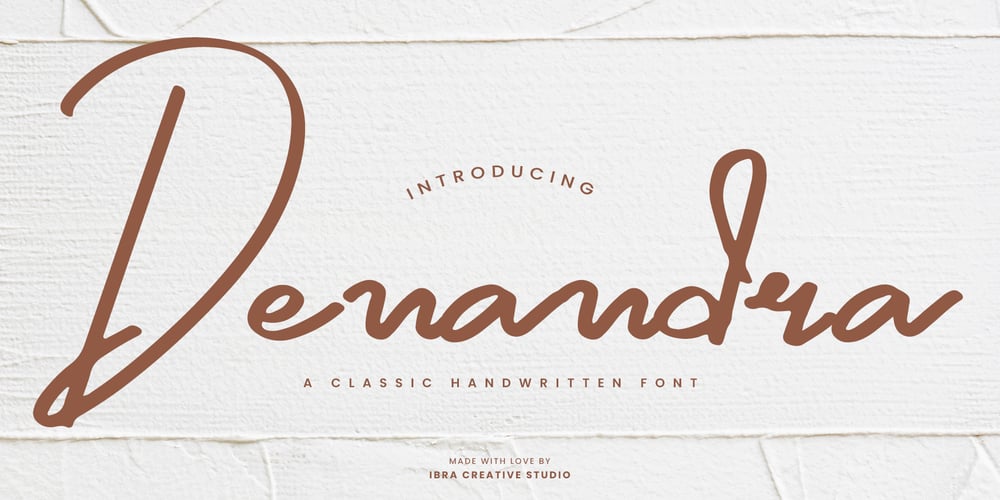
Denandra Font Family was designed by Roisatul Azizah and published by IbraCreative. Denandra contains 1 styles and family package options. Denandra – A Classic Handwritten FontDenandra is a timeless classic handwritten font that effortlessly captures the essence of handwritten elegance. With its graceful strokes and carefully crafted curves, this typeface brings a sense of authenticity and warmth to any project. The deliberate irregularities in each character lend a human touch, evoking the charm of traditional handwriting. Denandra strikes a perfect balance between legibility and artistic flair, making it versatile for various design applications. Whether used in invitations, greeting cards, or branding, Denandra adds a touch of personal and vintage charm, creating a connection between the digital world and the nostalgia of handwritten notes. This font is a testament to the enduring appeal of classic script, offering a sophisticated and enduring choice for those seeking a handwritten aesthetic with a timeless quality.Denandra is perfect for branding projects, logo, wedding designs, social media posts, advertisements, product packaging, product designs, label, photography, watermark, invitation, stationery, game, fashion and any projects.Fonts include multilingual support for; Afrikaans, Albanian, Czech, Danish, Dutch, English, Estonian, Finnish, French, German, Hungarian, Italian, Latvian, Lithuanian, Norwegian, Polish, Portuguese, Slovak, Slovenian, Spanish, Swedish.